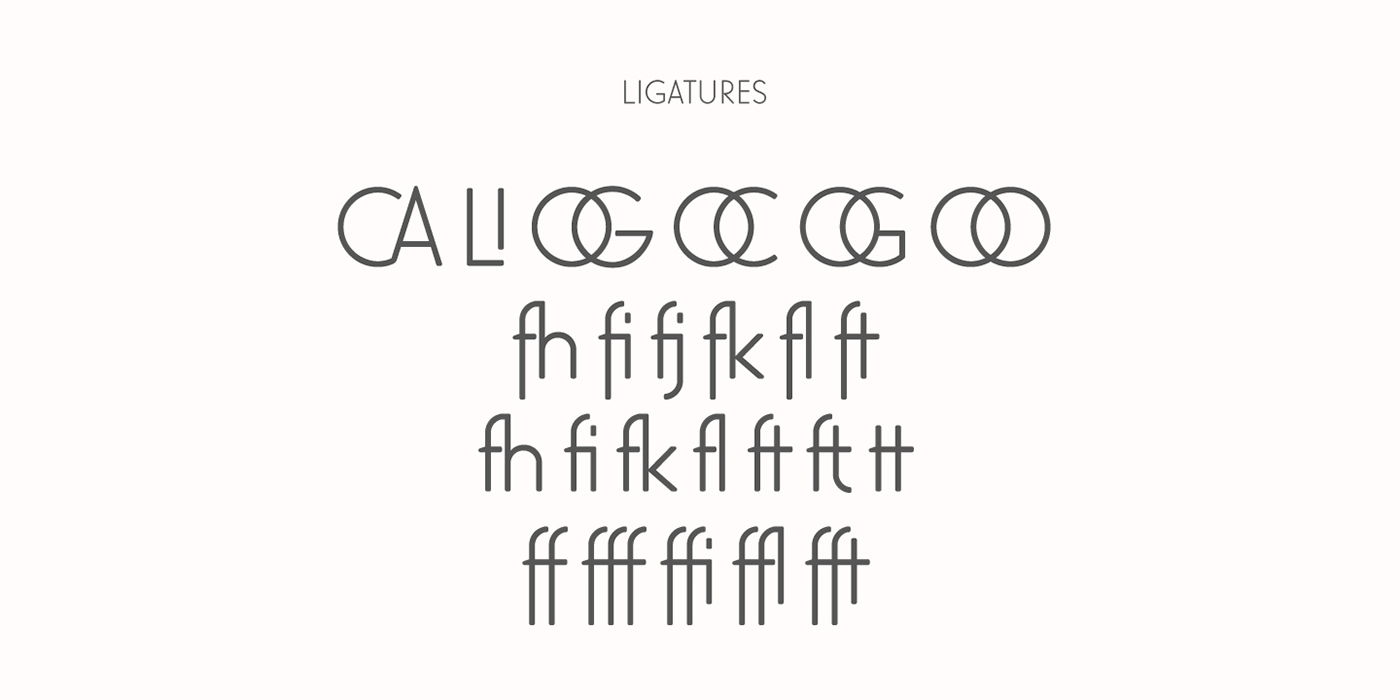
Influenced by the geometric grotesk faces that came up during the 1920s and 30s, the font is technological constructed but has a warm appearance due to its rounded corners which pay homage to the metal type printed look. The pro version of this font contains 3739 instead of 600 glyphs with a wide range of ligatures and alternate forms. It supports 80 Central, Western and Eastern European Languages and has a basic cyrillic character set. The base metrics and kerning are from iKern.
Currently working on 3 matching weights and a layered display case.